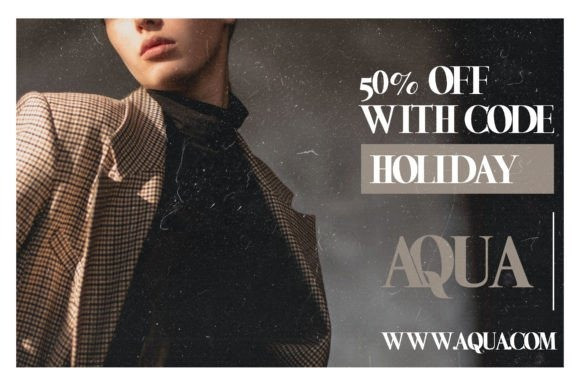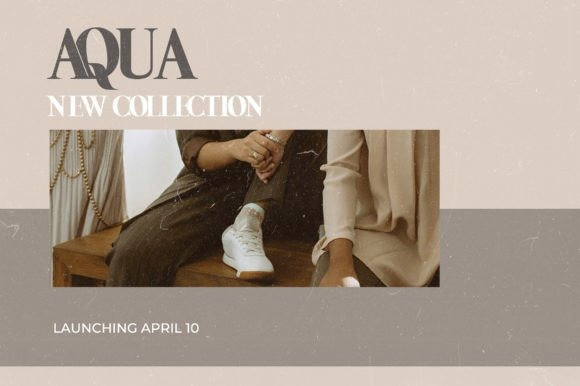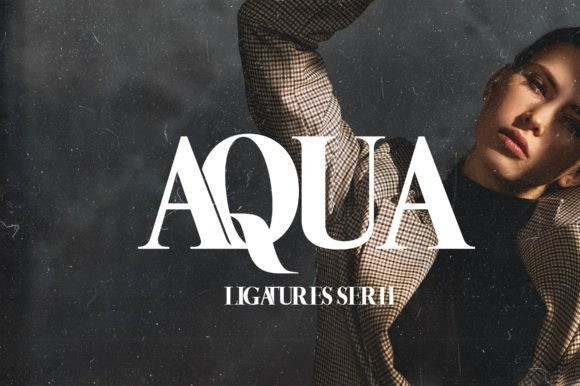
Aqua Font
Aqua Font is an elegant minimalistic and clean serif typeface. Its amazing glyphs construction makes it a vital choice when you are working on creative ideas that require a classy minimalist look. It can be used in a wide range of contexts such as packaging design, greeting cards, invitations, cosmetics branding, etc.